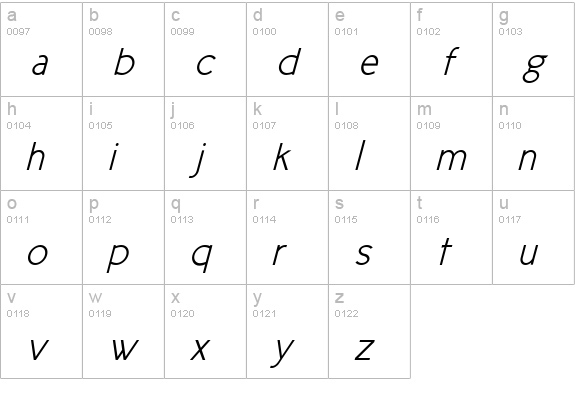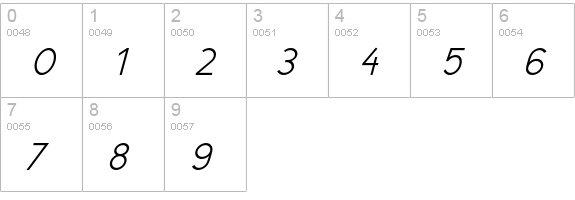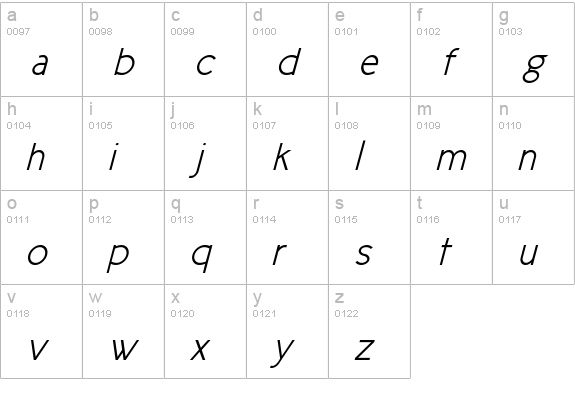
New Cicle Semi Italic Font Details
New Cicle Semi Italic is a distinctive, italic variant in the New typeface family \xE2\x80\x94 well suited to design and typography projects.
New Cicle Semi Italic font is a modern and elegant typeface that strikes the perfect balance between sophistication and readability. Its semi italic style adds a touch of flair and personality to any text, making it ideal for a wide range of design projects. With its clean lines and smooth curves, this font exudes a sense of professionalism and style. What makes New Cicle Semi Italic font even more appealing is that it is available for free download at FontsMarket.com. This means that you can easily access and use this versatile font in your designs without any cost. Whether you are working on a branding project, creating a poster, or designing a website, New Cicle Semi Italic font is sure to elevate the overall look and feel of your work. Add a touch of class and sophistication to your designs with this beautiful and freely available typeface.